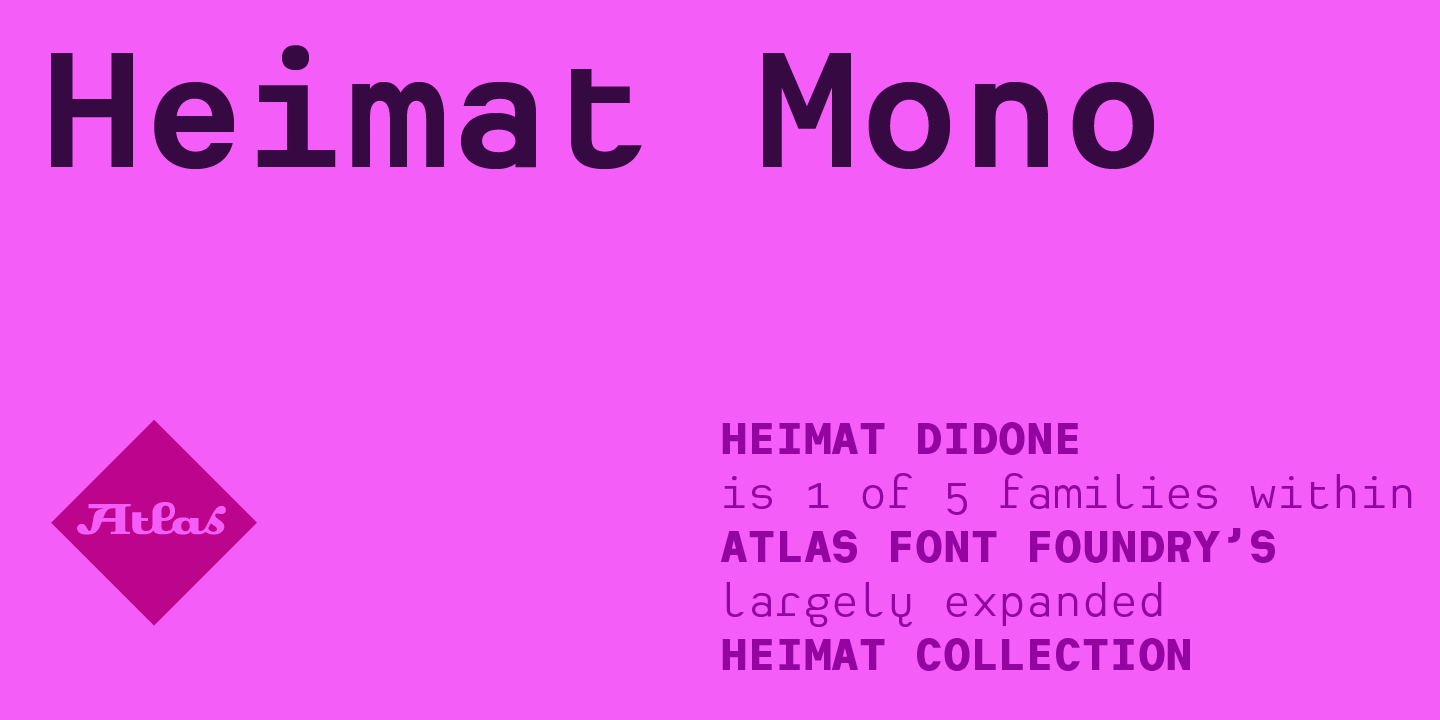
Discover the perfect marriage of retro charm and modern functionality with the Heimat Mono Font Free Download, a monospaced typeface that brings character to code editors, technical documents, and creative designs. Inspired by classic typewriter aesthetics with contemporary refinements, this font delivers both nostalgia and readability in equal measure.
Why Heimat Mono Stands Out
1. Distinctive Monospaced Design
Uniform character width for perfect alignment
Retro-inspired letterforms with modern legibility
Includes true italics for code commenting
2. Unmatched Technical Versatility
Perfect for:
Programming interfaces
Technical documentation
Creative writing environments
Vintage-style branding
App development
3. Premium Typographic Features
4 weights (Light, Regular, Medium, Bold)
Extended Latin character set
Optimized for screen readability
Includes programming ligatures
Professional Applications
The Heimat Mono Font Free Download excels in:
Developer portfolios
Technical blogs
Retro-themed designs
Coding tutorial videos
Terminal/IDE customization
Developer Tip: Use Medium weight for optimal screen readability during long coding sessions.
Heimat Mono Font Free Download - Where vintage typewriter aesthetics meet modern digital precision!
Includes circled numbers and special technical symbols
Perfect for creating authentic "hacker" movie visuals
Excellent for Arduino IDE and Raspberry Pi projects
Design Insight: Pair with a clean sans-serif like Inter for documentation body text while using Heimat Mono for code snippets. This creates perfect visual hierarchy in technical documents.